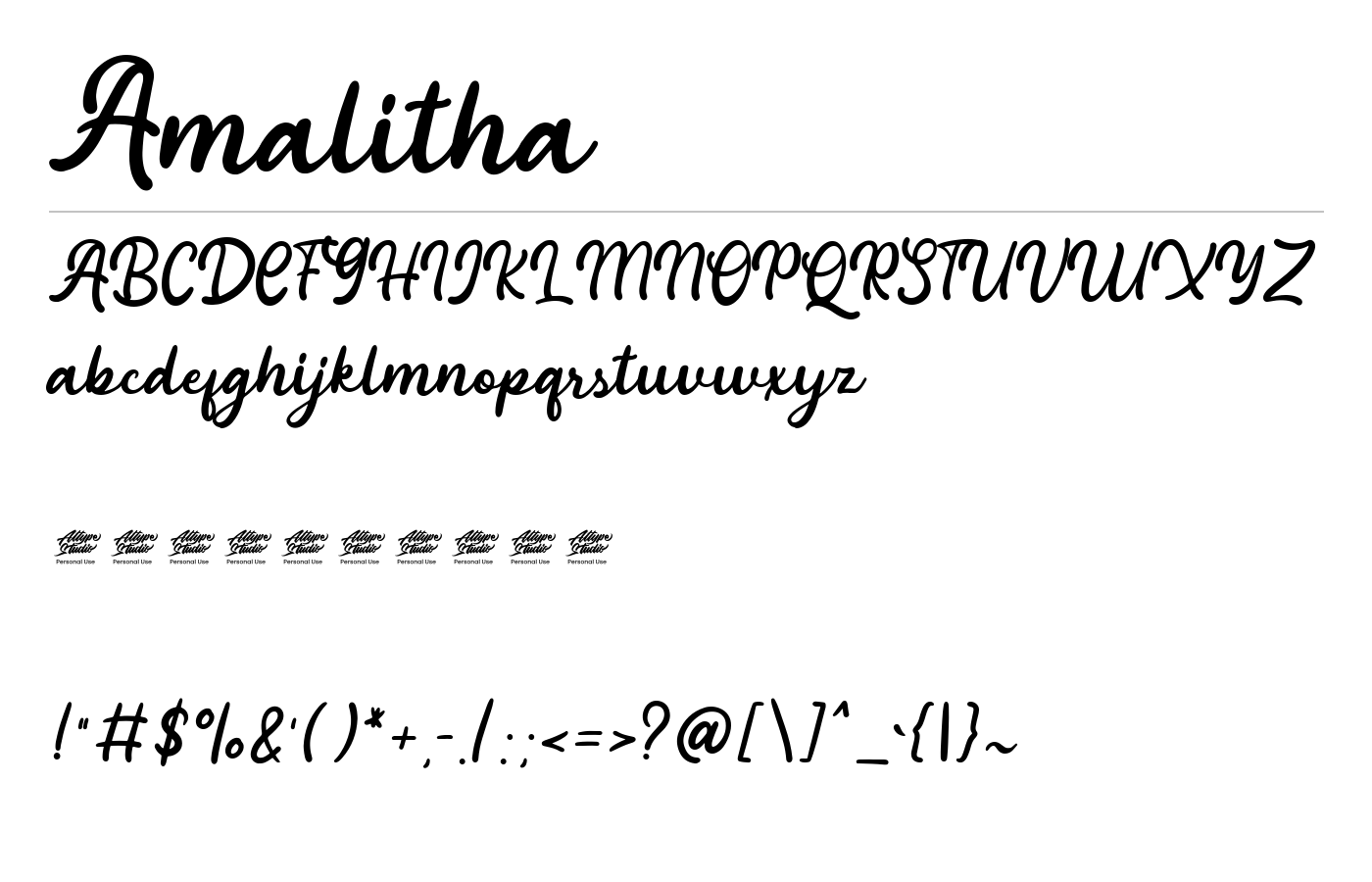
Amalitha is a charming script font with a smooth, flowing style that mimics elegant handwriting. Its medium weight and moderate contrast create a friendly yet polished look, ideal for adding a personal, creative touch to invitations, branding, and social media graphics. This font is perfect for designs seeking a warm, approachable feel while maintaining sophistication.
| Font family | Amalitha Font |
| Designer | Fadli Ramadhan Iskandar |
| Trademark | Amalitha is a trademark of Attype Studio |